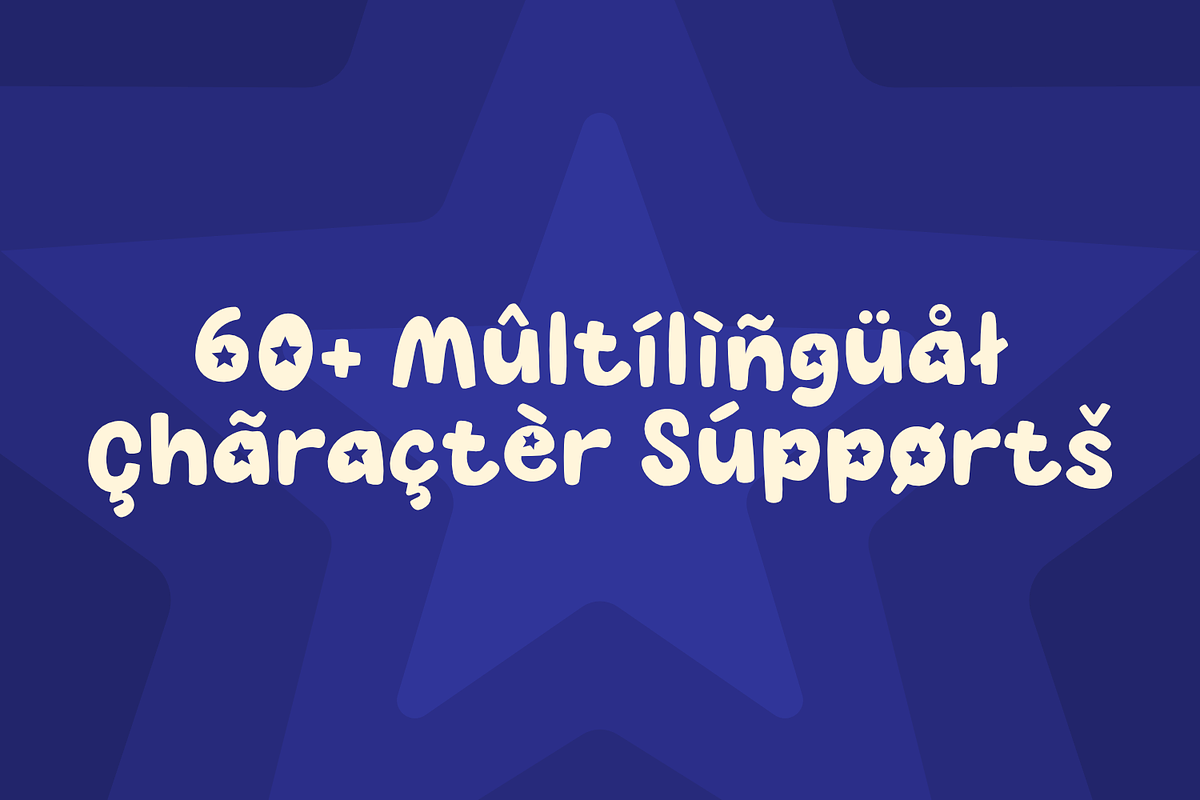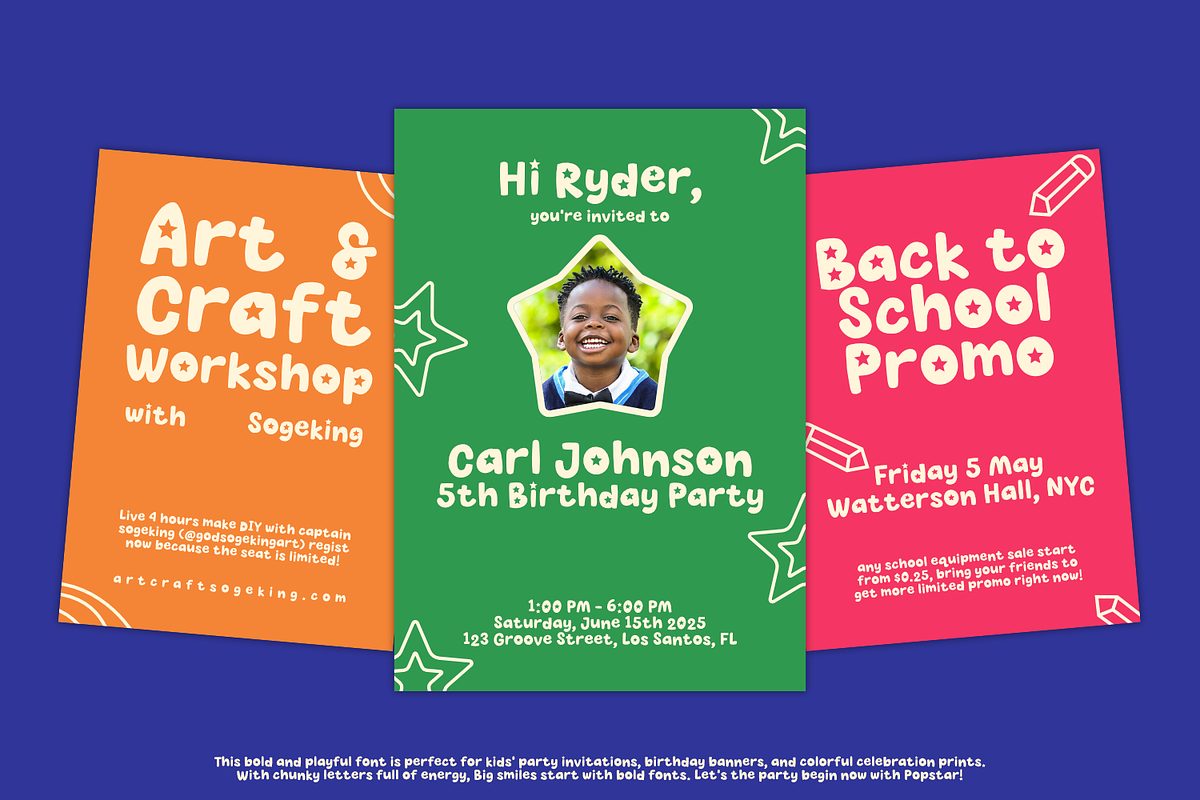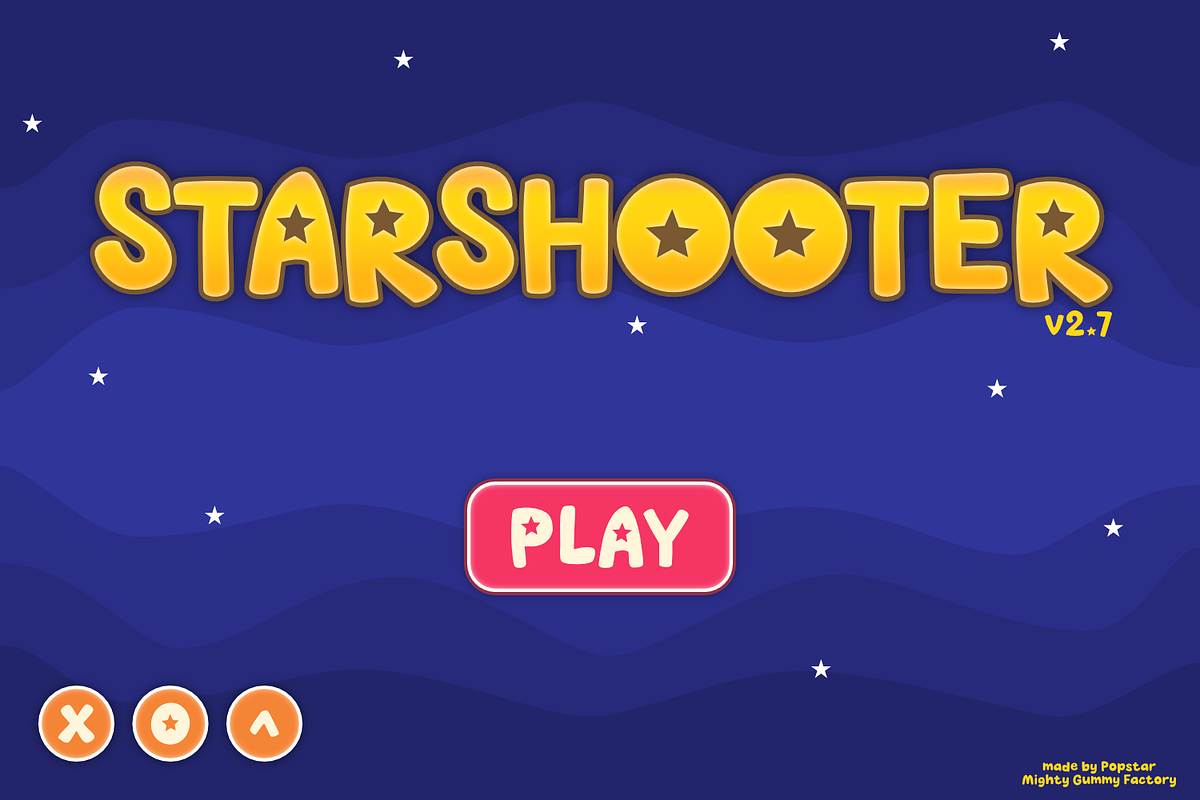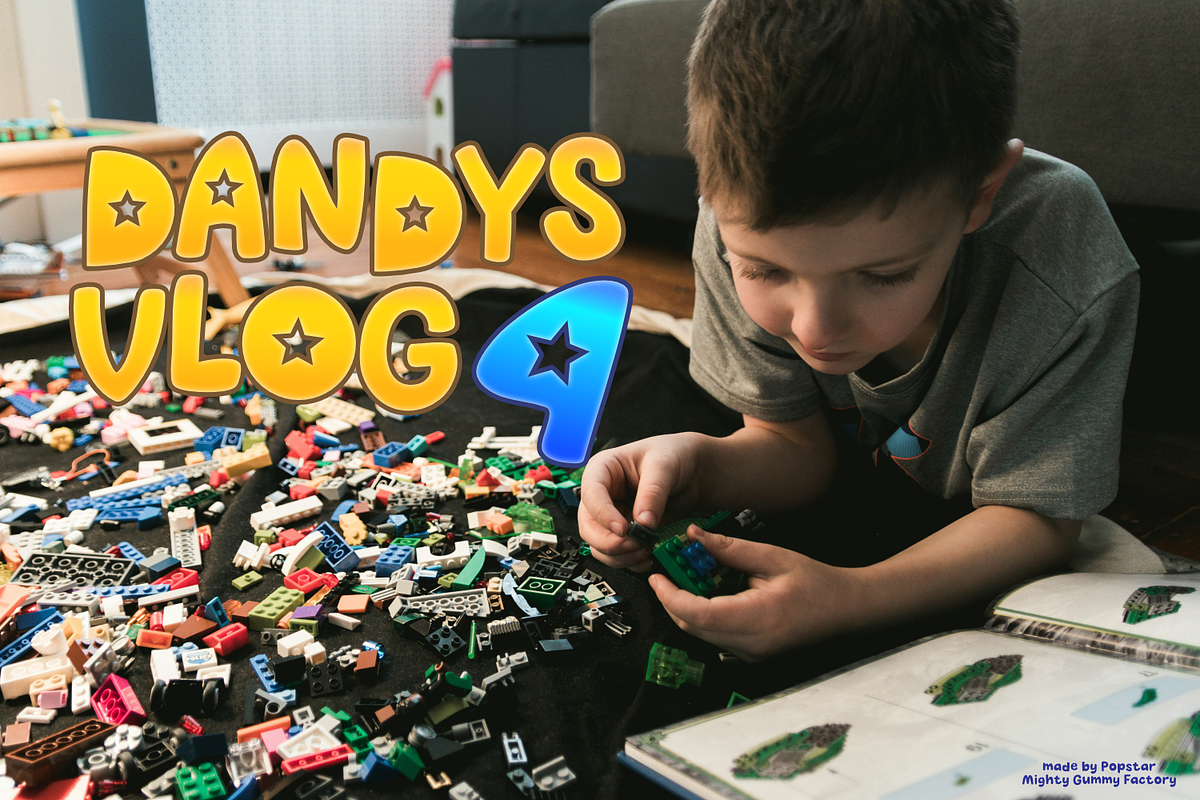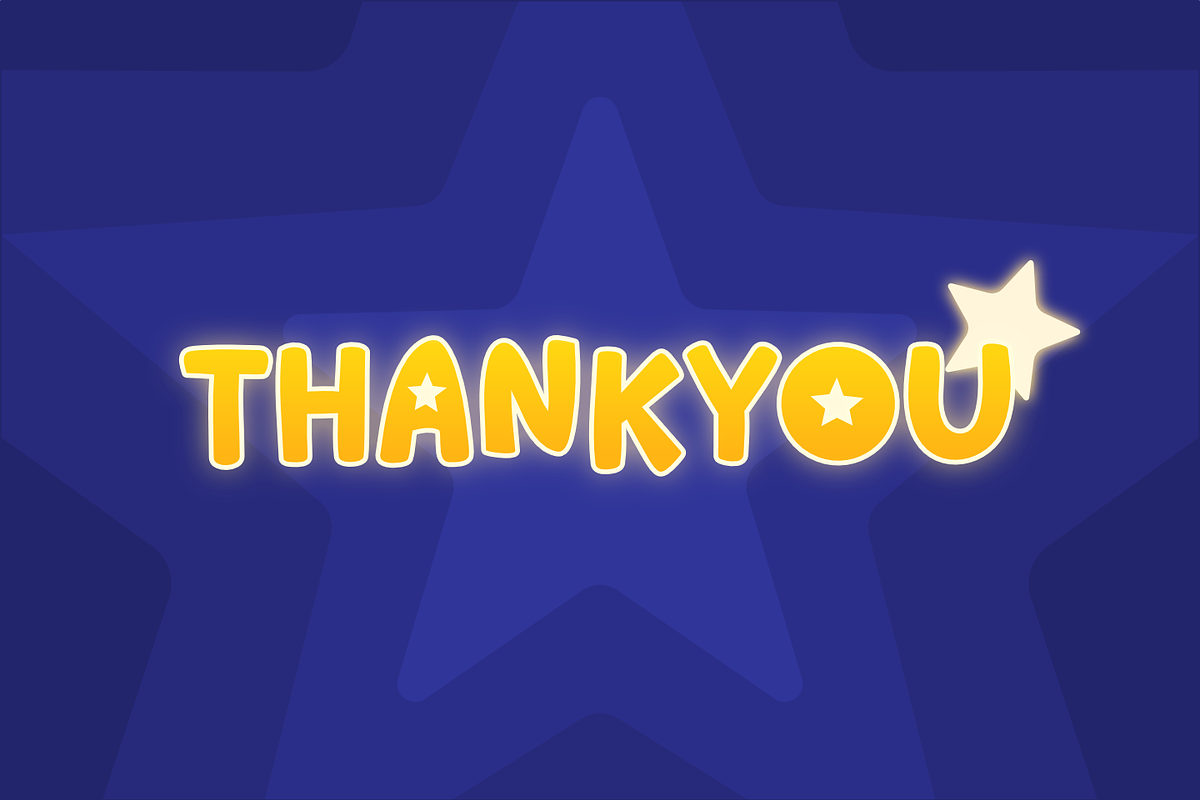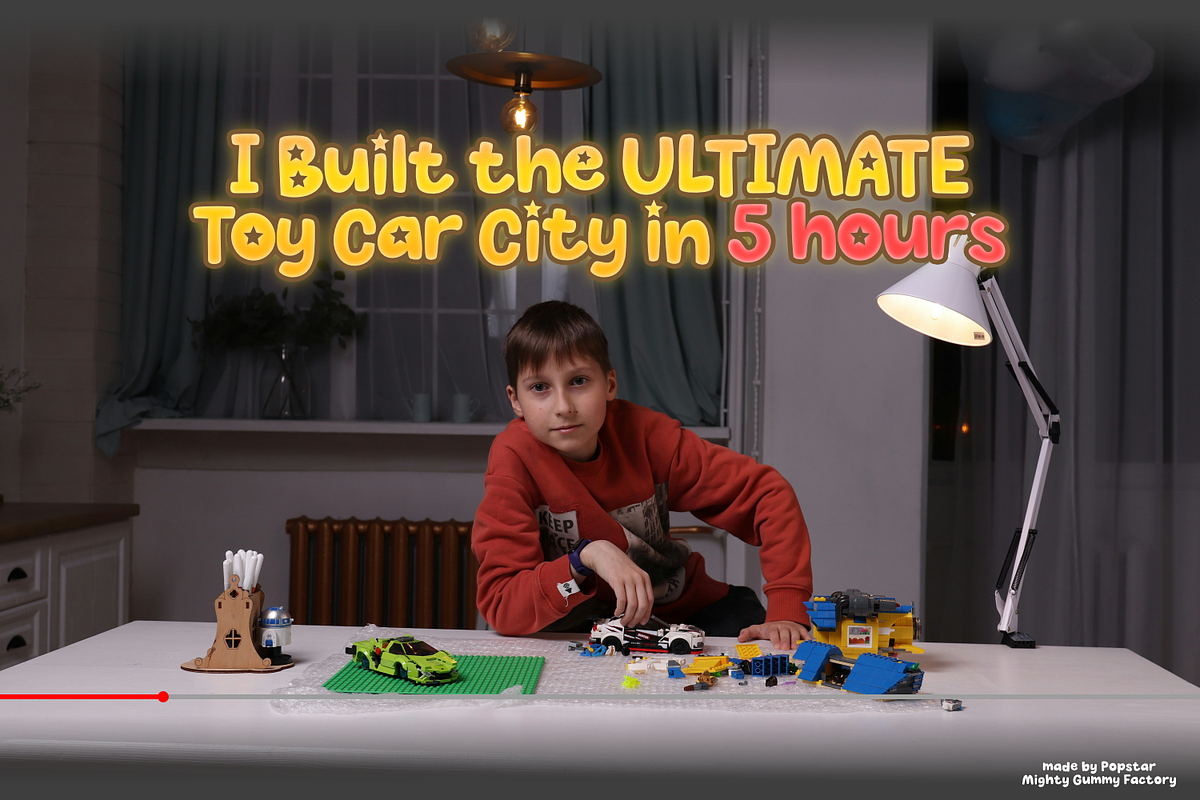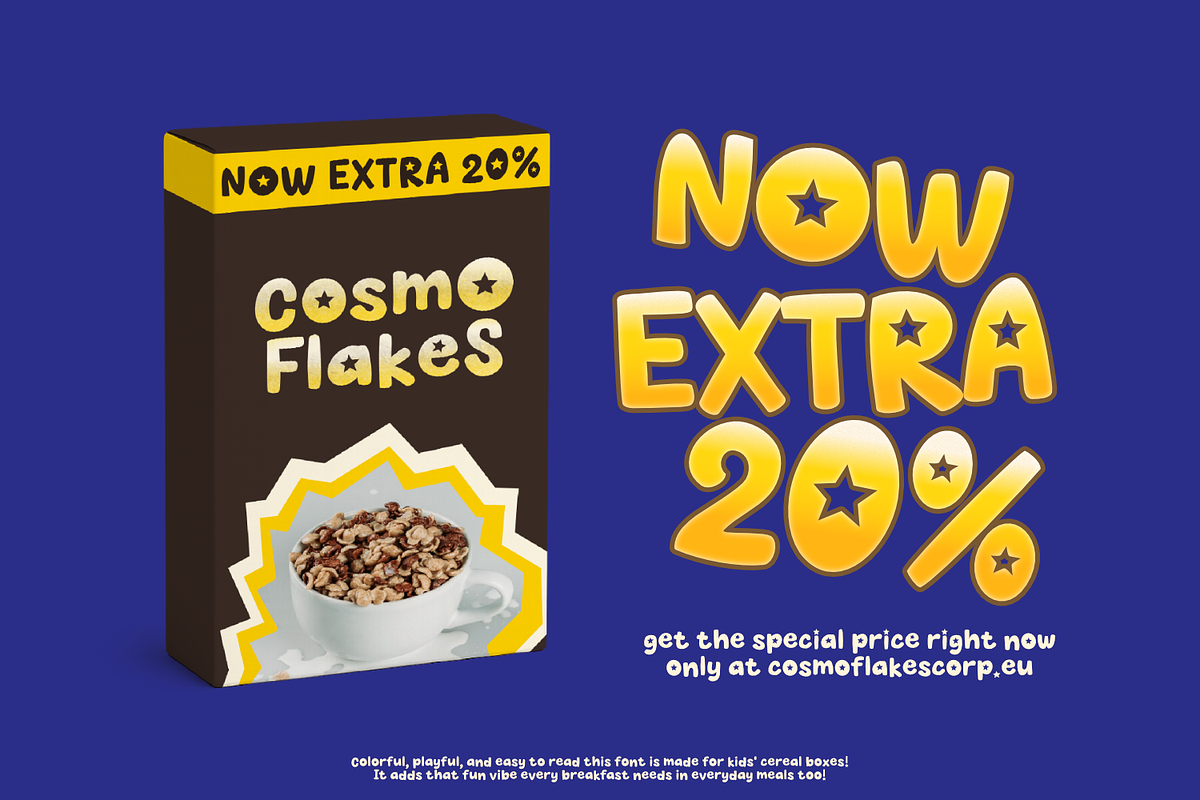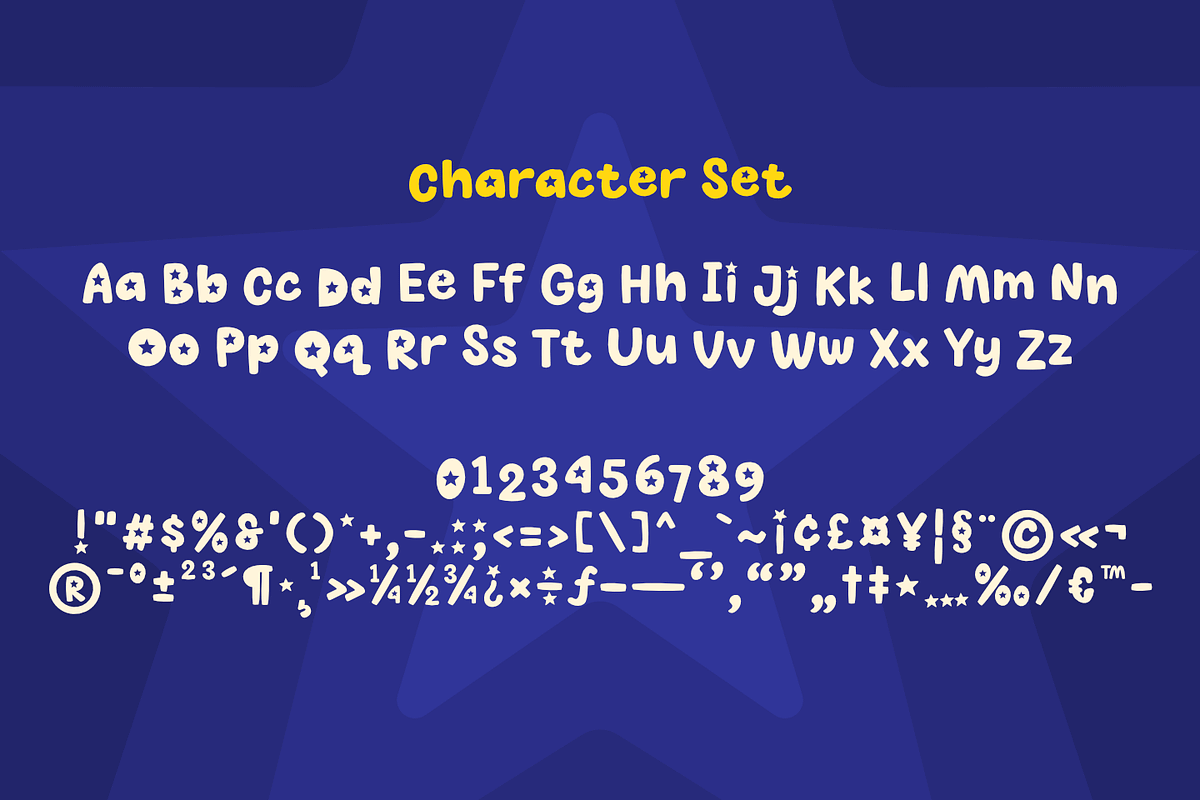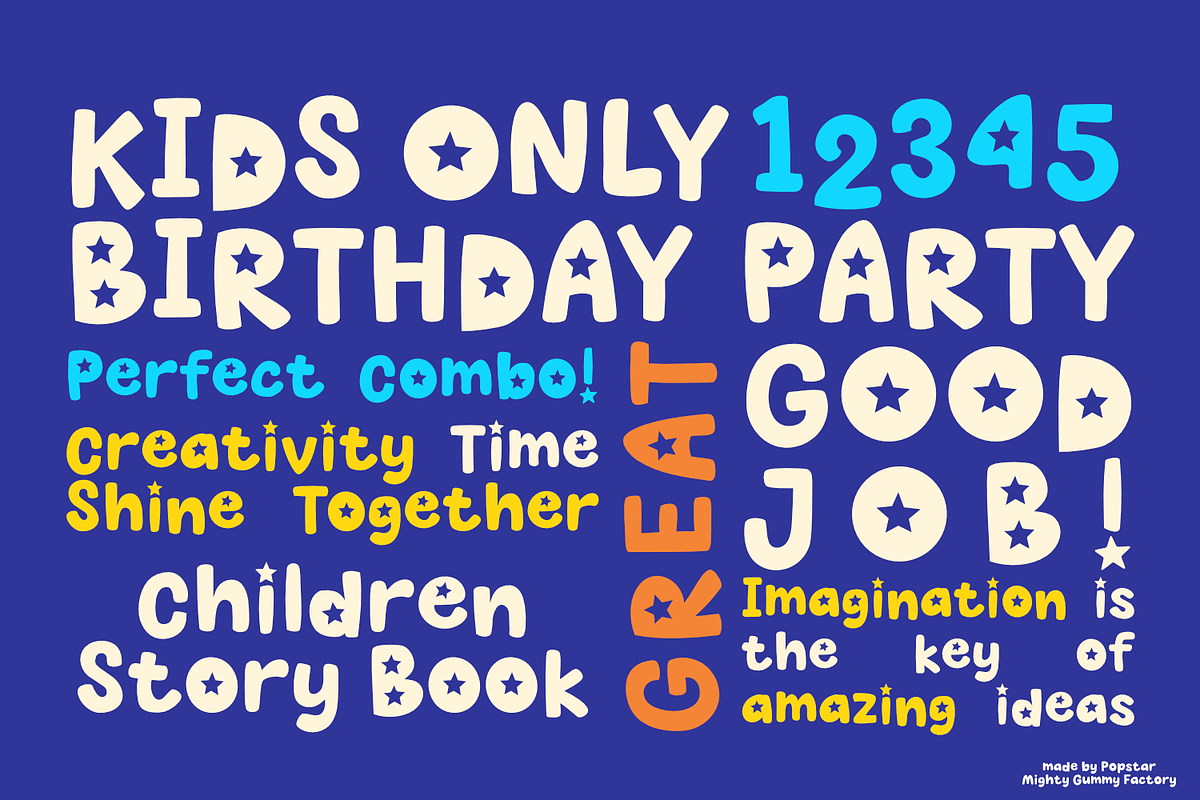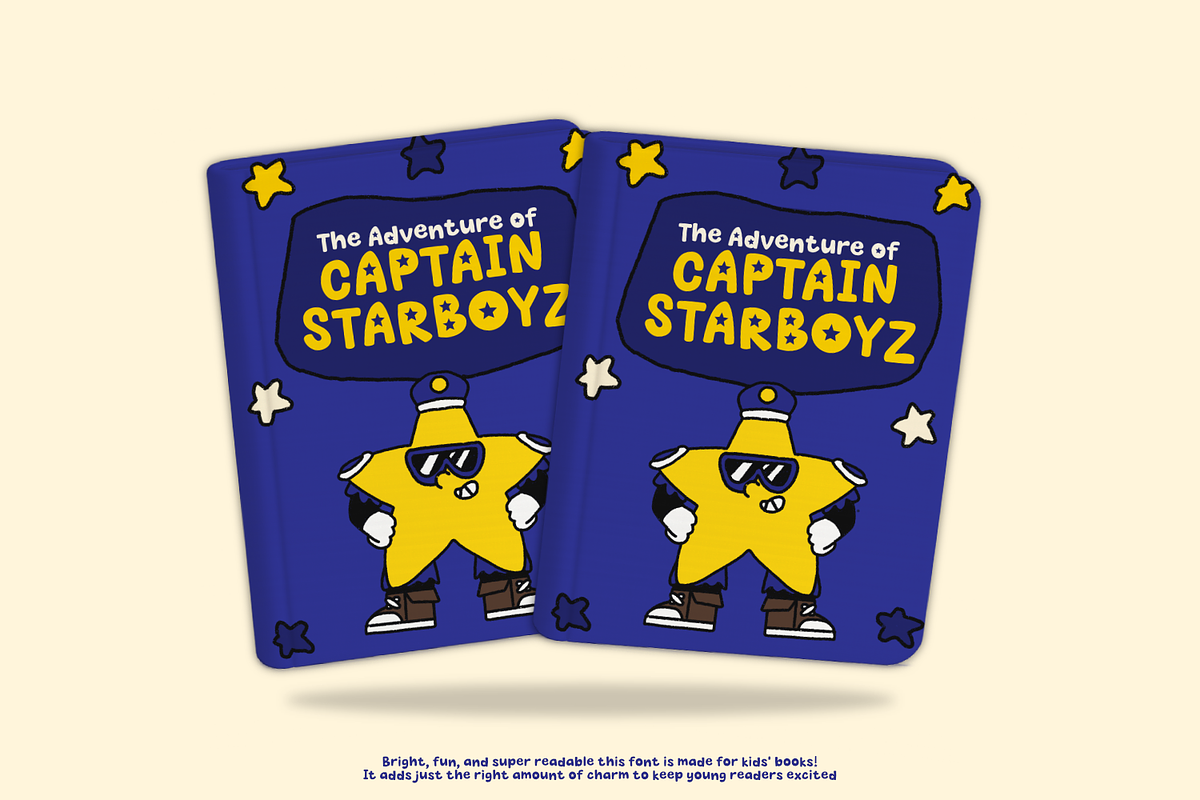
Popstar – Fun Bold Star Themed Font
POPSTAR – Fun, Bold Star-Themed Font for Kids & Creatives!
A Whimsical Font Bursting with Star Power Say hello to POPSTAR, a bright and bouncy display font that’s ready to shine in your next creative project! With star-shaped accents inside every letter and playful, chunky curves, this font is the perfect choice for anything that needs a joyful, youthful vibe. Whether you’re designing for kids, creating bold YouTube thumbnails, crafting playful packaging, or adding some magic to your social posts POPSTAR is your go to for eye catching, high energy designs.
What Makes POPSTAR Shine?
- Playful Rounded Style – Soft, bubbly, and bold with perfect readability
- Star-Inspired Design – Unique cutout stars in each letter add instant charm
- Perfect for Kids Content – Ideal for children’s books, birthday invites, games & apps
- Brand-Ready – Use it in logos, merch, packaging, and social media graphics
- High Impact on Digital Platforms – Great for YouTube, Instagram, Pinterest, and Reels
- Multilingual Support – Covers basic Latin characters for versatile use
Popstar is Great For:
- Kids & family brands
- Toy packaging
- Party invitations
- YouTube thumbnails
- Instagram graphics
- Classroom materials
- Fun logo designs